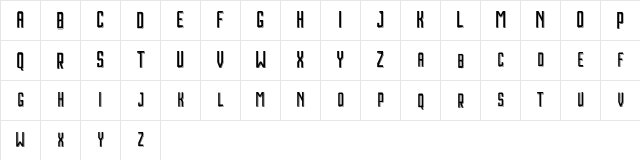
Houston Shadow Regular Font Preview
Houston Shadow Regular
Houston Shadow Regular Font Details
Design Context for Houston Shadow Typeface
Houston Shadow brings ornamental detail and strong personality to headlines and identities, where visual impact matters more than quiet functionality.
Font Pairing: Pair with a clean neutral sans-serif for body copy to let Houston Shadow's character lead without overwhelming the composition.
Pro Tip: Use Houston Shadow exclusively at display sizes — it was designed to be seen, not read at length. Let a neutral companion handle body copy.